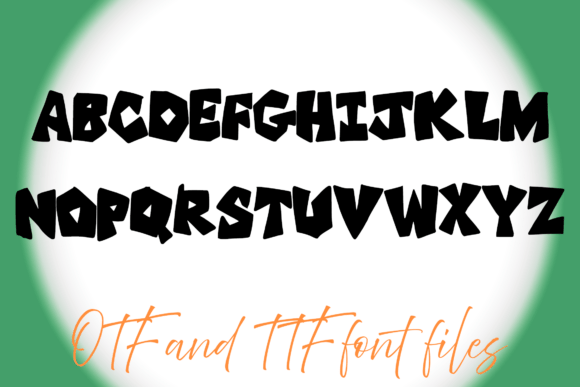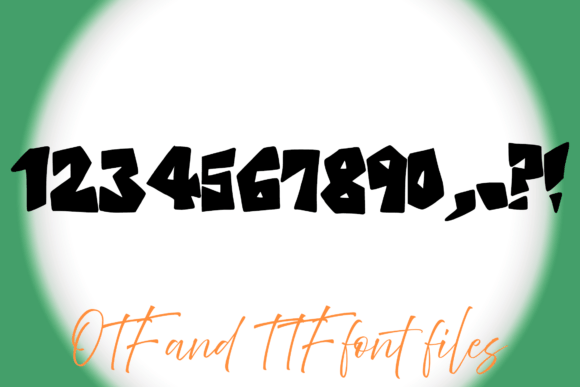
Introduction to Jagged Cranky Font
You know that moment when you’re working on a creative project and you’re stuck searching for the perfect font to give it that extra oomph? The one that makes your design stand out from the crowd and screams ‘I’m here, listen up!’? That’s exactly what the Jagged Cranky Font does – it’s like a bold, chaotic burst of energy that demands attention.
As a designer, you’re always on the lookout for unique design resources that can elevate your work and help you express your vision. The Jagged Cranky Font is one such resource – a high-quality, free download that’s perfect for anything from edgy posters to underground music flyers. With its raw and loud personality, it’s sure to make your design project shine.
Key Features of Jagged Cranky Font
- Unique, distressed design with a distressed, hand-drawn feel, perfect for creative projects.
- Unique characteristics include a bold, edgy feel and a mix of uppercase and lowercase letters, adding to its distressed, hand-drawn aesthetic.
- Perfect for designers looking for a creative, high-quality font to add a unique touch to their design projects.
Honest Review: Jagged Cranky Font
I recently had the opportunity to work with the Jagged Cranky Font, a popular design resource that offers a free download for creative projects. Overall, I found the font to be a great addition to my design arsenal.
- Unique Character: The Jagged Cranky Font offers a distinctive, hand-drawn feel that sets it apart from more traditional fonts.
- High Quality: The font is available in high resolution, making it suitable for use in a variety of design contexts.
- Transparent Background: This font includes a transparent background option, allowing for seamless integration into design projects.
- Limited Character Set: While the font includes a wide range of characters, it may not be suitable for use in languages that require a larger character set.
- Lack of Italic Options: The font only includes a regular and bold weight, making it less versatile than some other design resources.
Overall, I found the Jagged Cranky Font to be a solid choice for creative projects. While it has some limitations, its unique character and high quality make it a valuable addition to any designer’s toolkit.
The Jagged Cranky Font is perfect for creative projects requiring a unique, edgy look. Use it for headings, titles, or body text to add a touch of personality to your design. This font is also ideal for designs with a distressed or vintage aesthetic.